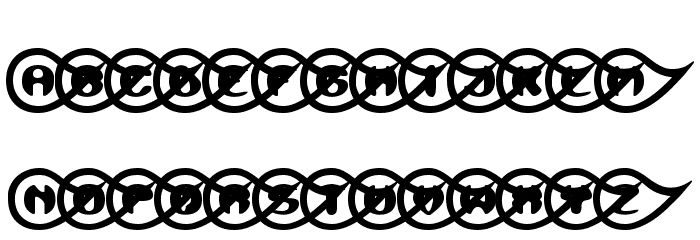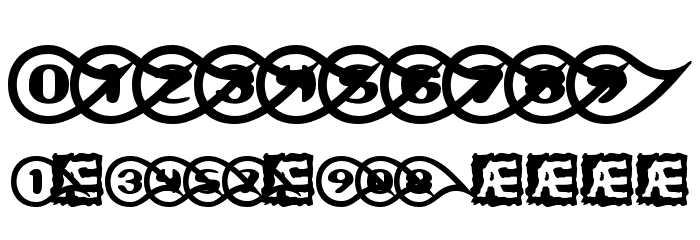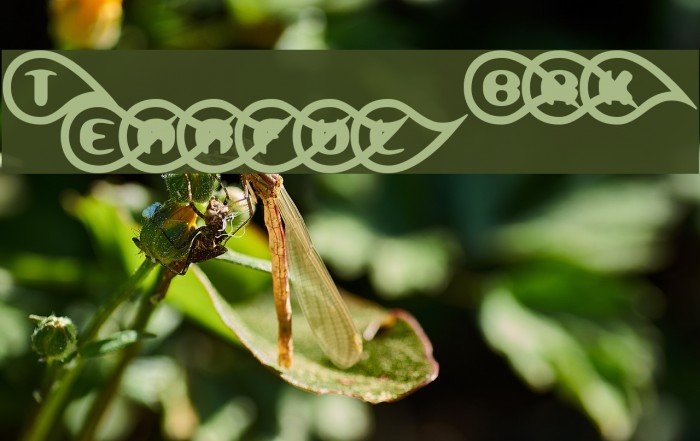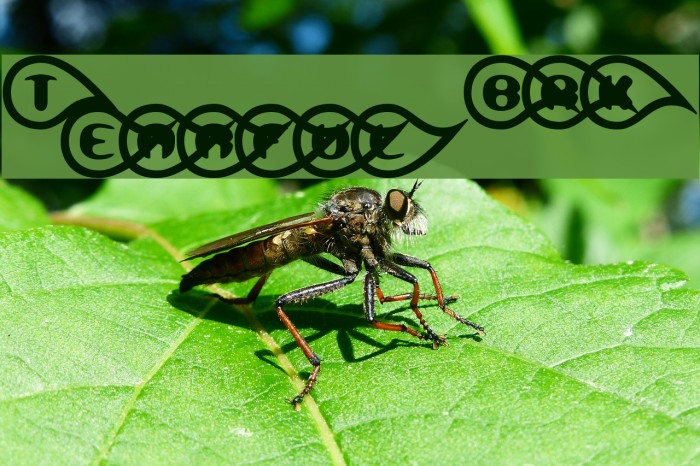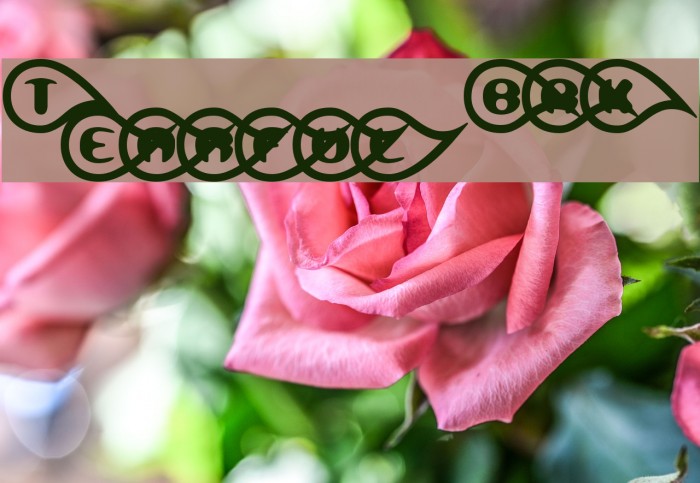
Tearful BRK Font
This font features a unique and bold design with each character enclosed in a circular shape, accented by a teardrop-like flourish at the end. The letters are uppercase and lowercase, with numbers and special characters also included. The style is highly decorative, making it stand out with its intricate and artistic appearance. The bold strokes and enclosed circles give it a distinctive look, suitable for eye-catching designs.
A bold, decorative font with characters enclosed in circles and teardrop accents.
- Proposed Projects: Ideal for creative projects such as posters, album covers, and branding that require a bold and artistic touch.
- Category: Decorative/Display
- Contrast: High